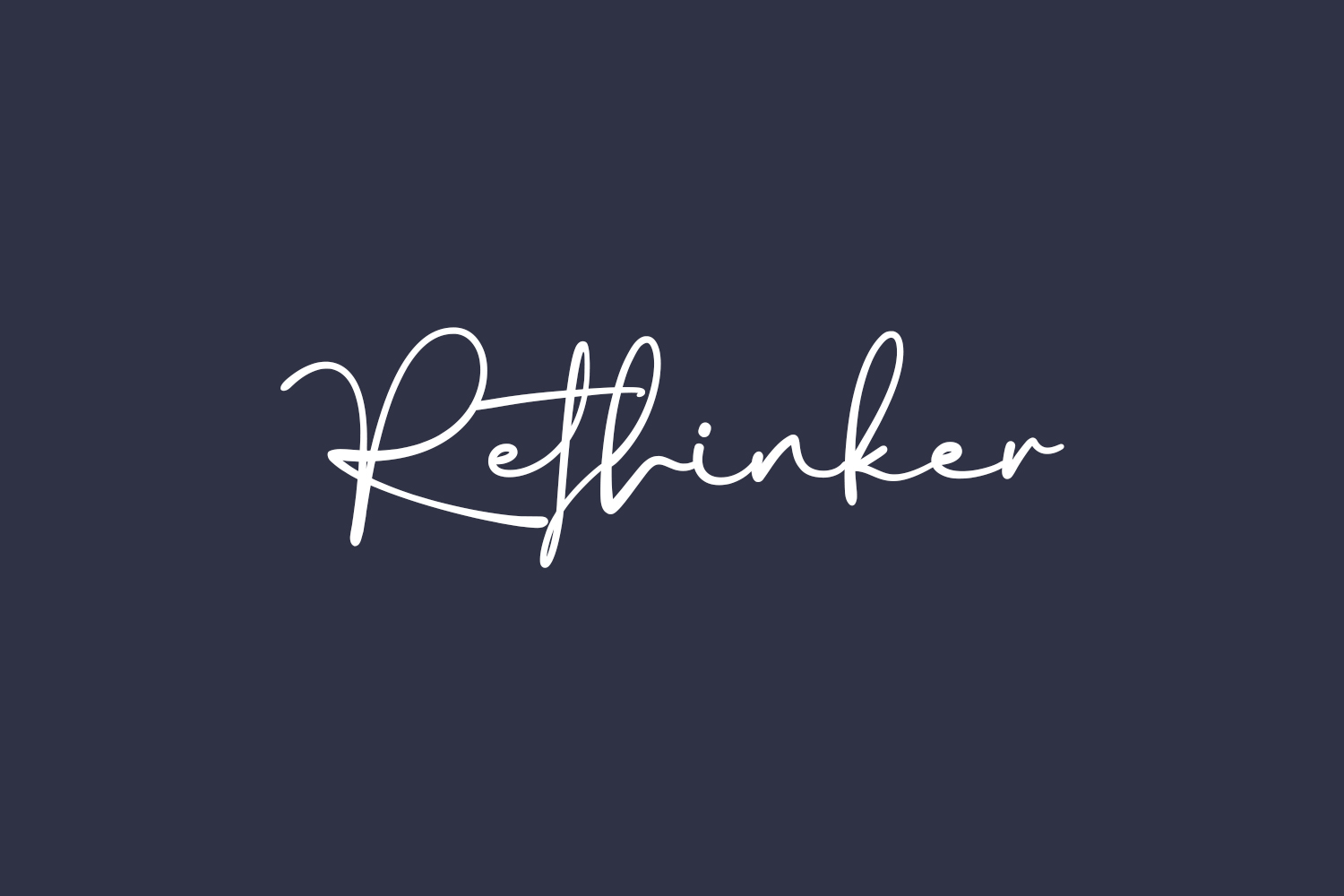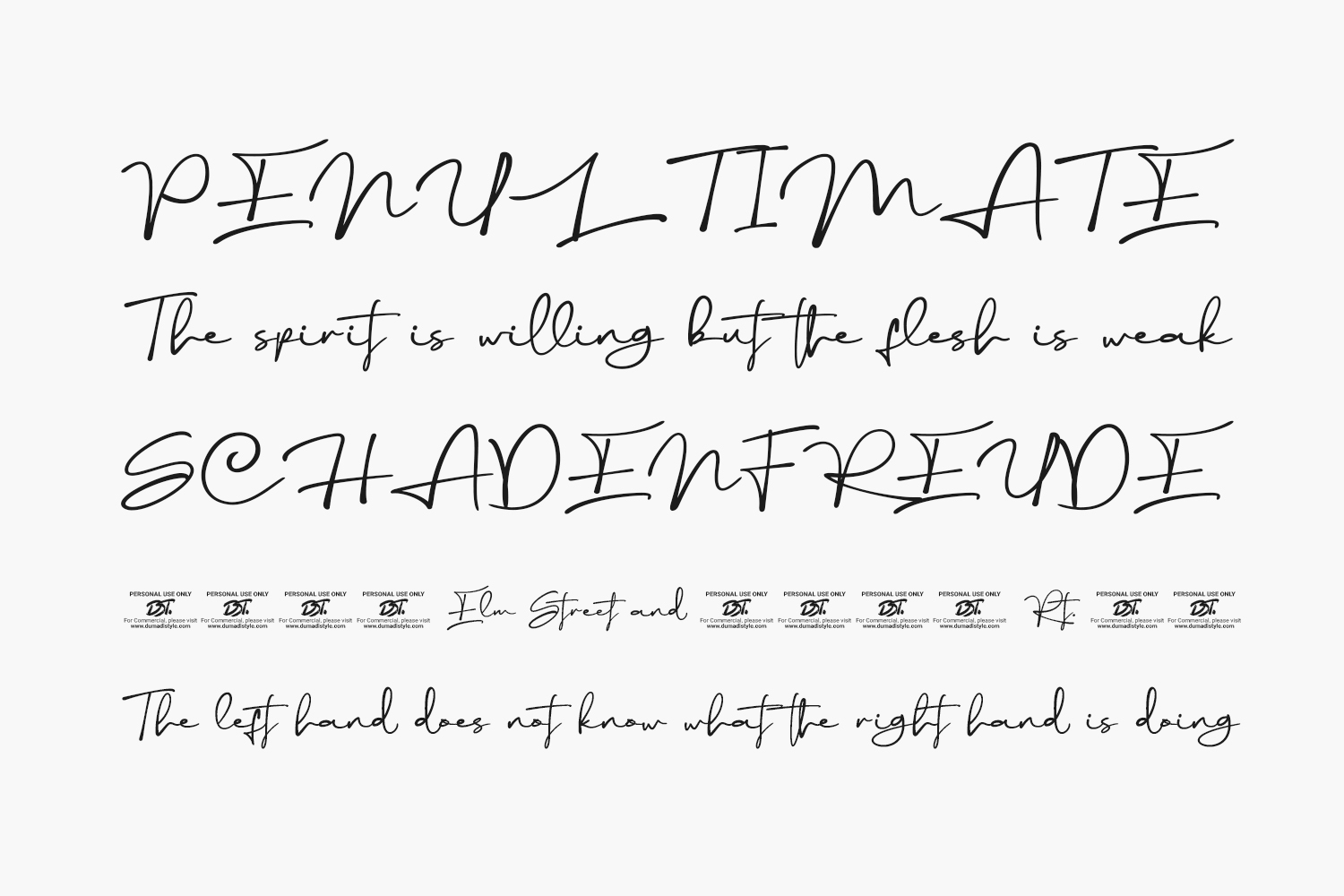
Rethinker Free Font is a delicate and elegant handwritten font. Its distinct and well balanced letters make this font a masterpiece. Rethinker Free Font was designed by DumadiStyle is a demo and free for personal use only. Please purchase the full version for commercial use.